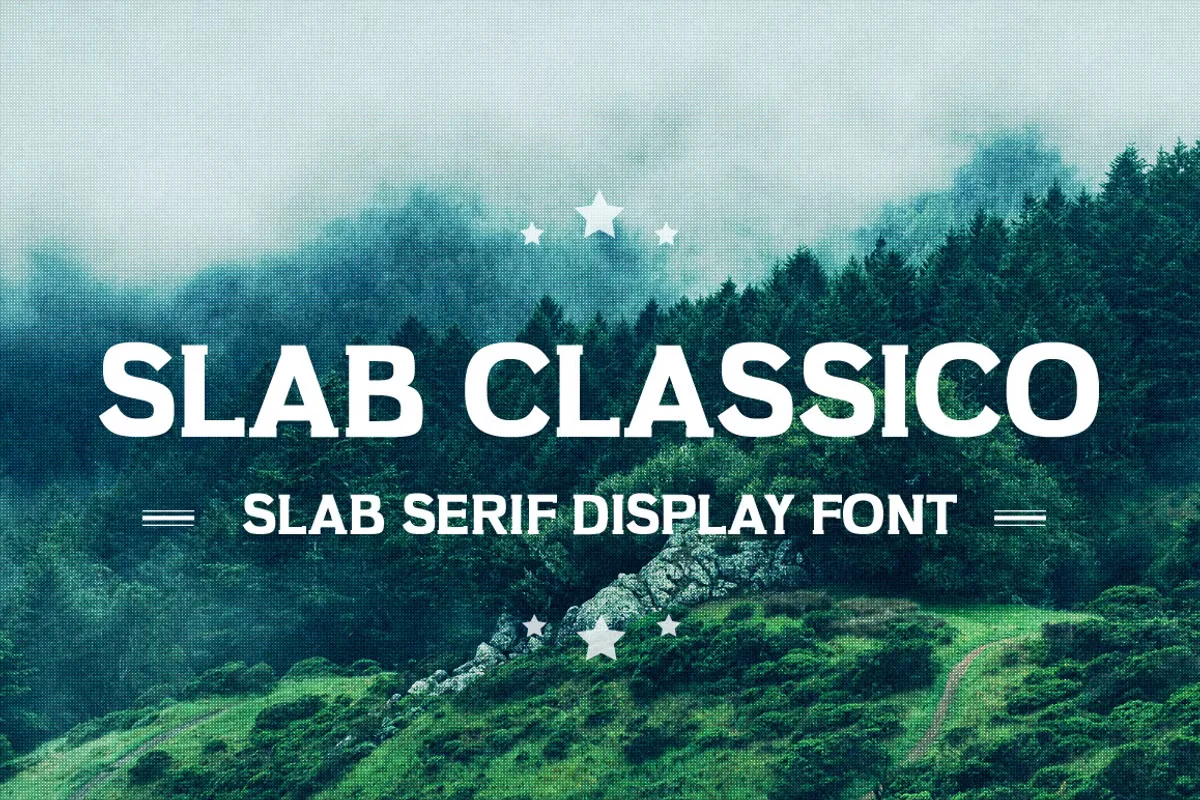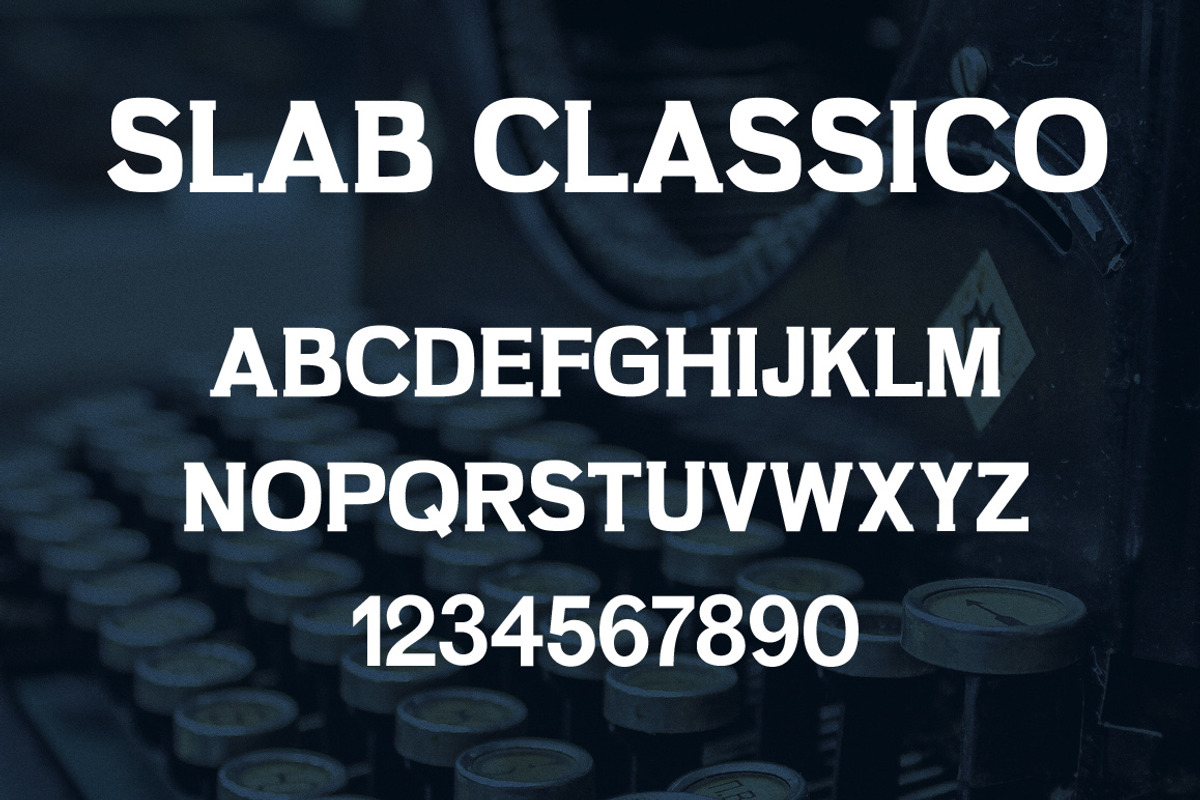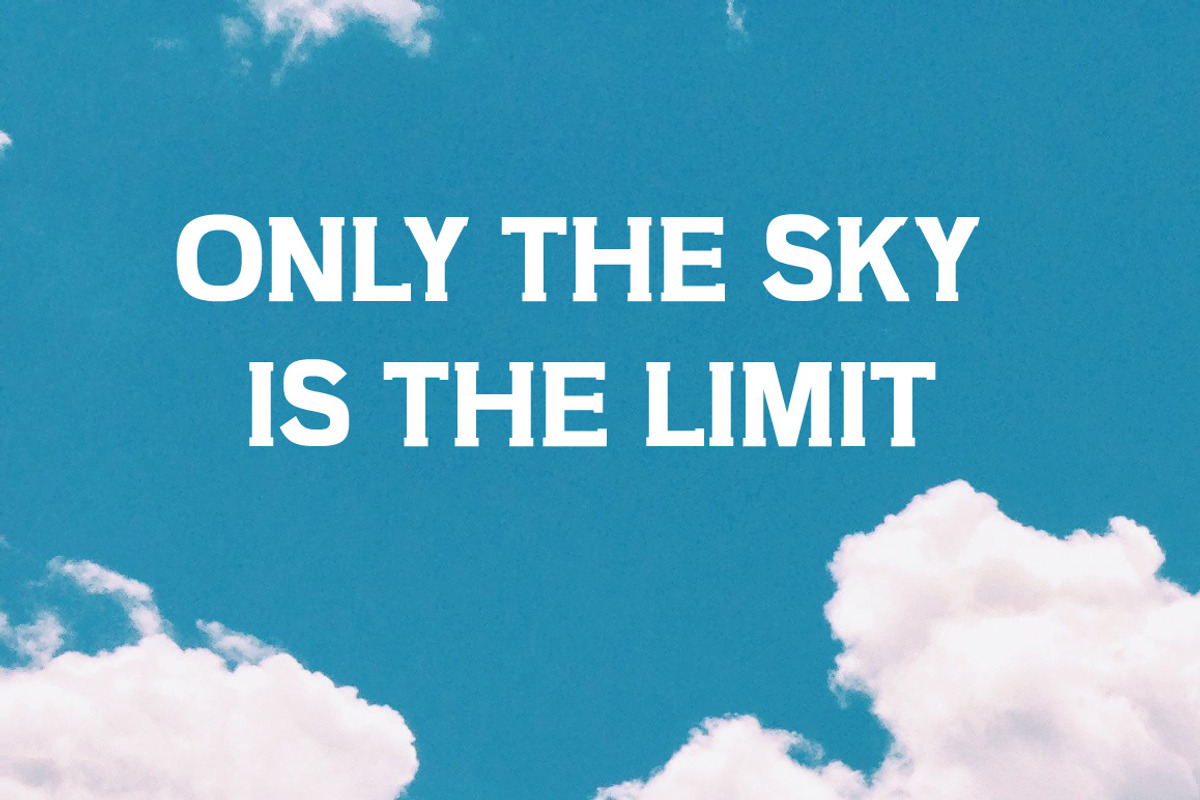
Slab Classico Font
Slab Classico is a vintage display slab serif typeface. It takes more of a Clarendon-style approach to lettering but some of the letters and serifs have a geometric slab style.
Great for posters, logos, packaging, invitations, website titles, T-shirts and more.